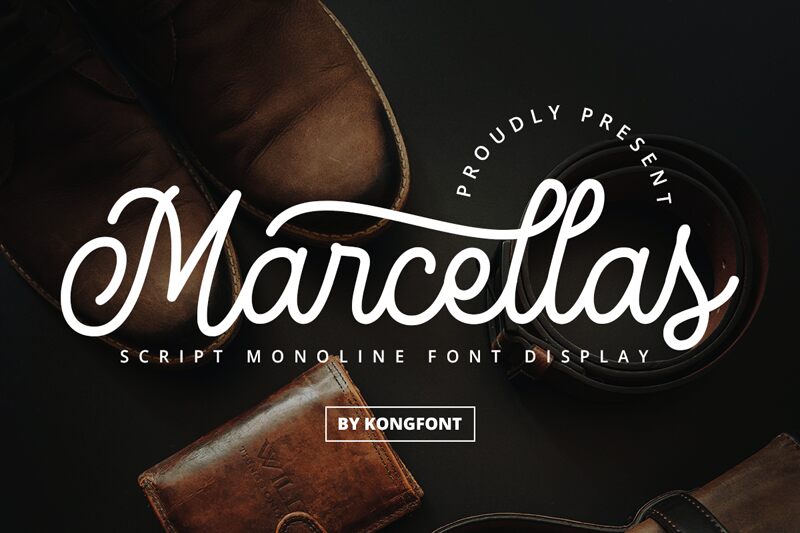
Marcellas
Marcellas, crafted by Kong Font, is a stunning and elegant monoline calligraphy font that exudes sophistication and grace. With its semi-light weight, Marcellas is perfect for projects such as wedding invitations, luxury branding, editorial design or any project that requires a touch of refinement. Its flowing curves and clean lines create a sense of fluidity and harmony that will elevate any design to the next level. Whether you're creating a logo or designing an invitation card, Marcellas will make your project stand out with its unique aesthetic. Experience the beauty of Marcellas today!